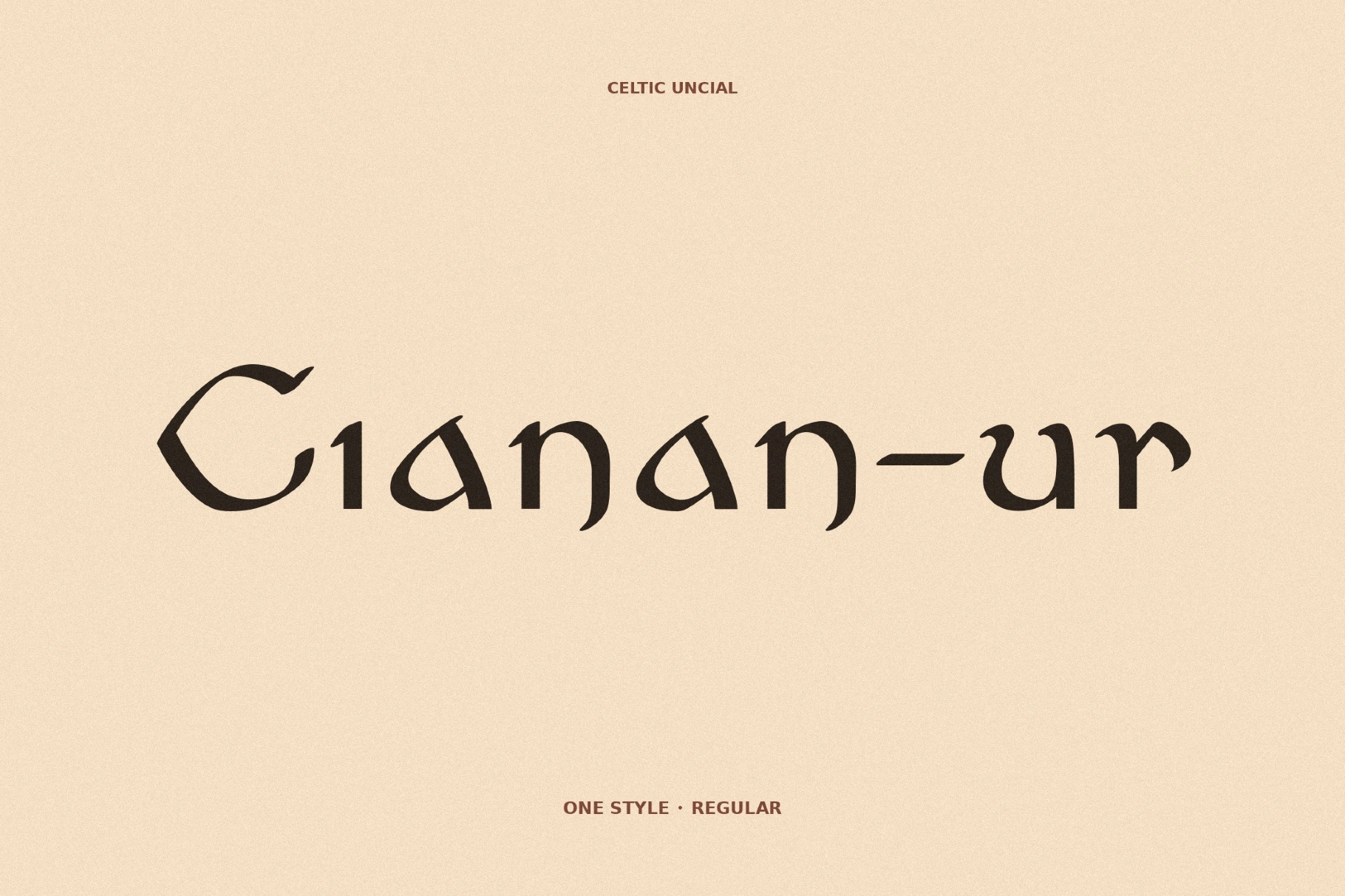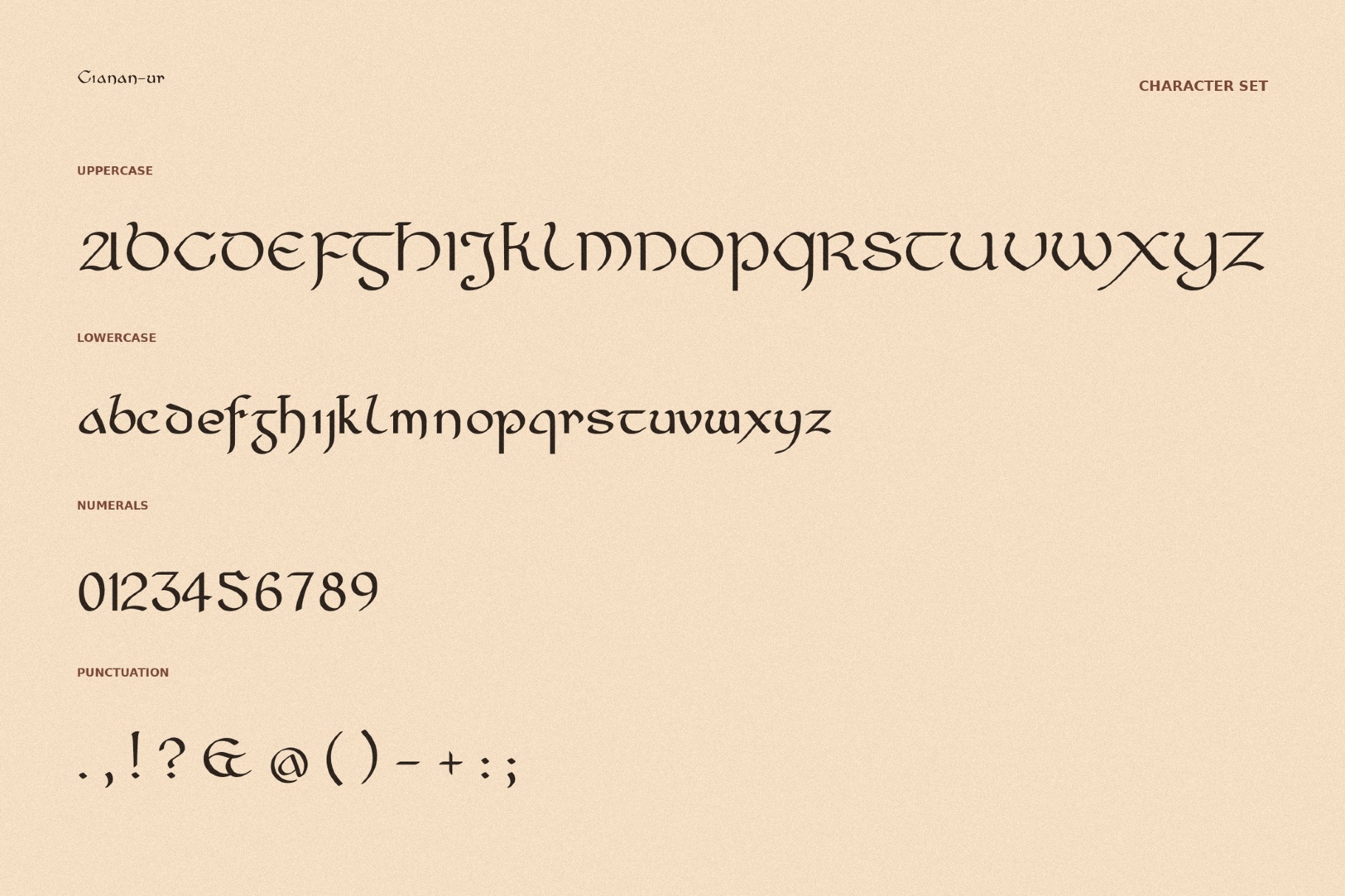
Cianan-ur - Celtic Font
Sharp, solemn, and faintly ceremonial, Cianan-ur carries the visual weight of early medieval script. Its curved strokes and pointed details are shaped by Celtic manuscripts, monastery stonework, and map lettering from worlds that probably have border disputes and cursed forests.
This mythic font is a strong fit for fantasy book covers, role-playing game titles, heritage logos, brewery labels, folk festival graphics, museum posters, and formal invitations.
- uppercase and lowercase letters;
- numbers, punctuation, and symbols;
- multilingual support across an extended Latin and Greek scripts;
- ligatures.